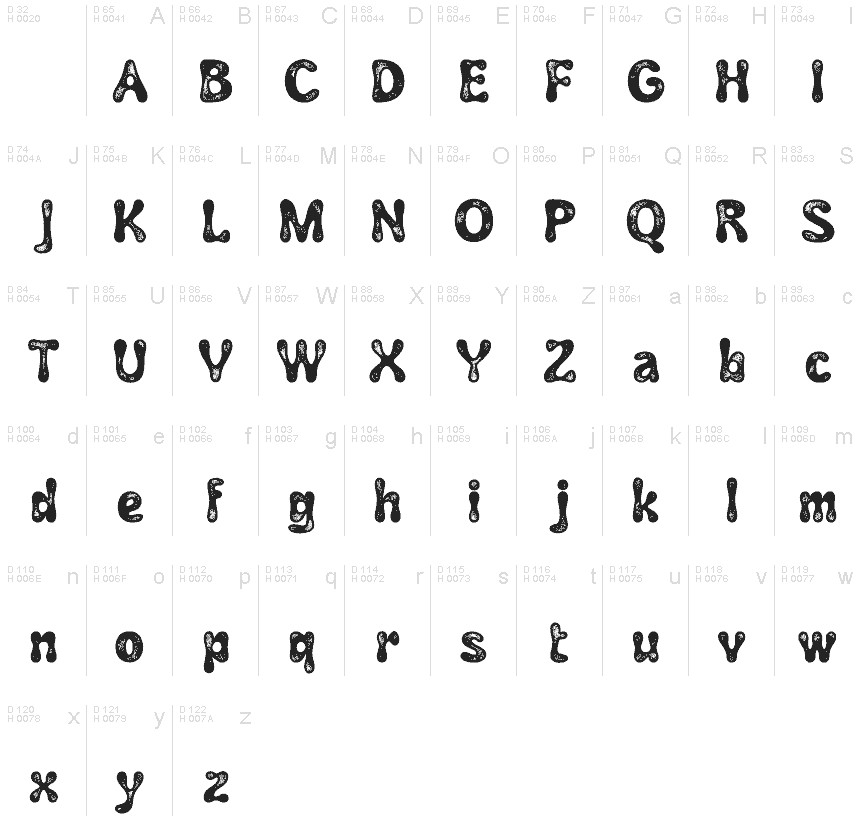
Rastely Vintage Demo Stamp
Rastely Vintage Stamp font by Craft Supply Co is perfect for designers looking to imitate an old-stamp effect. The main elements of the typeface, its eroded look, and carefully positioned decorative shapes and edges bring about this exact style. The overall casual feel and nostalgic mood make it great for projects centered around portraying similar themes.
This free vintage display font is definitely retro-inspired, having the ability to add some beautiful historic notes within your work. Some of its potential uses include book covers, branding projects, package designs, websites, social media posts and profiles aesthetic makeover, typographic logotypes creation, digital collages/print art creation (posters), illustrations inspired by history or movies (fan art or otherwise), or invitations’ design (exhibitions/design fairs/other events).